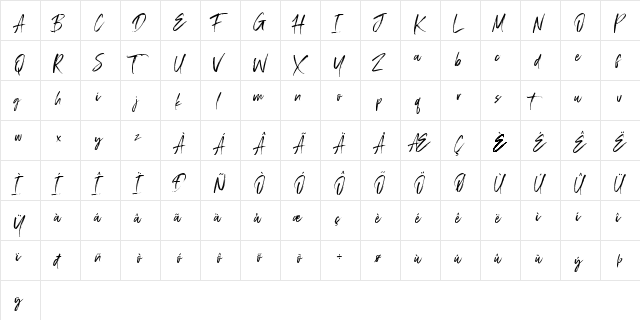
Displatter Regular
Design Context for Displatter Typeface
Displatter is a composed and adaptable typeface that performs quietly and consistently across a wide range of design contexts.